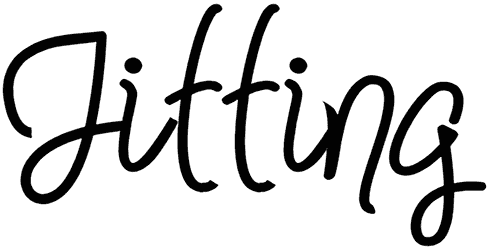
Jitting Font
Have you ever enjoyed doodles and handwritten fonts? They are cute and childish to give your content a fun look. Jitting is one perfect example of this category, which can change the whole tone of your artwork with curly and thin lines.